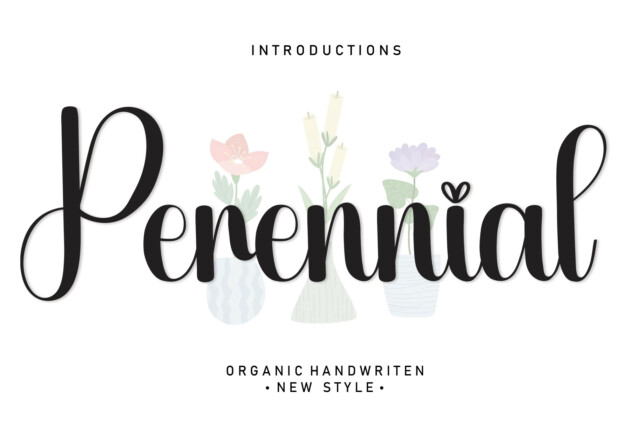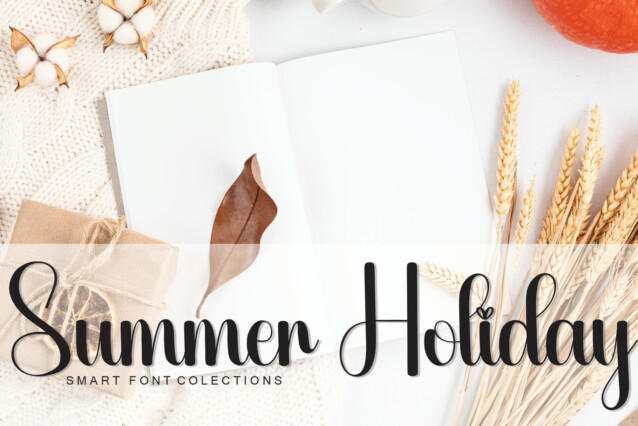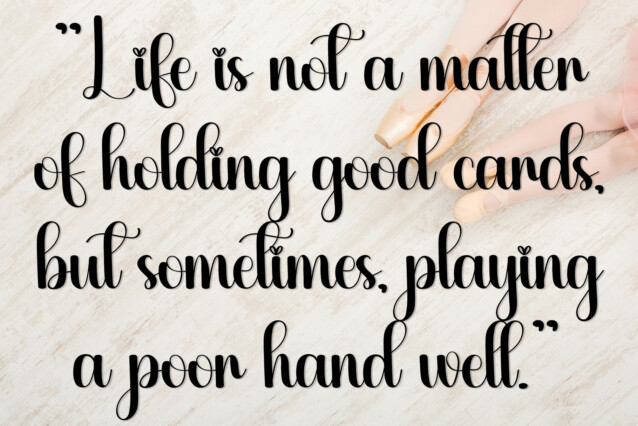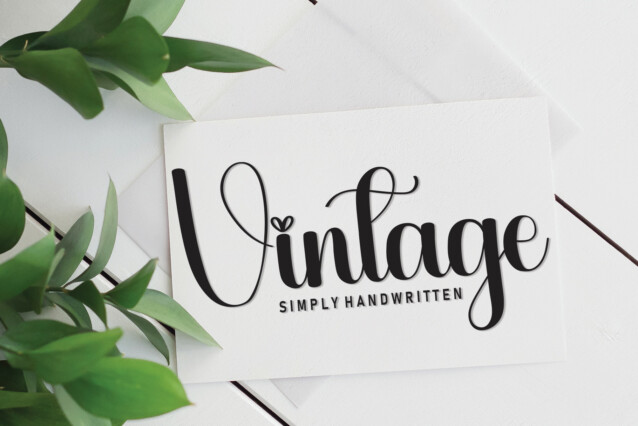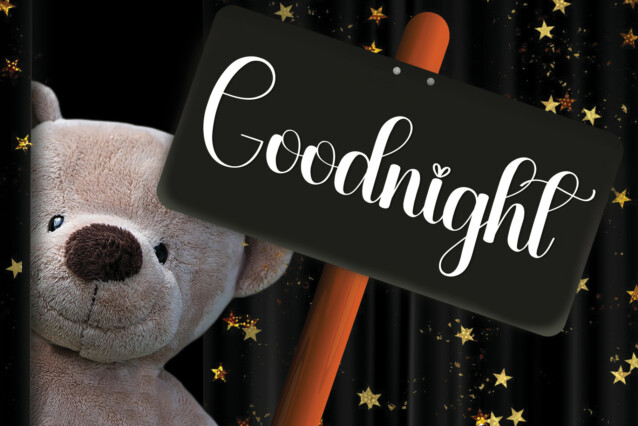
Perennial Script Font
Perennial Script Font is a sweet and cursive handwritten font. This gentle font will look gorgeous on a variety of design ideas. It will add a joyful and romantic touch to each of your projects!